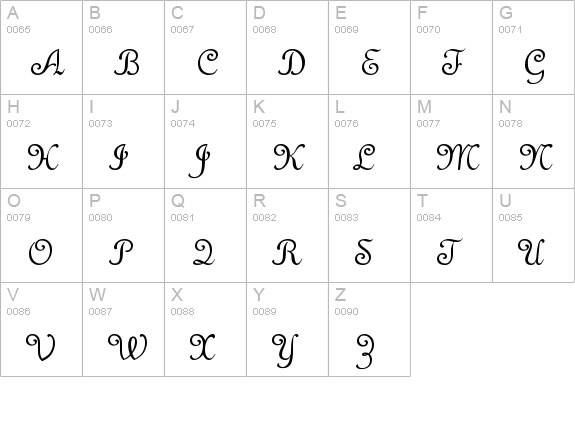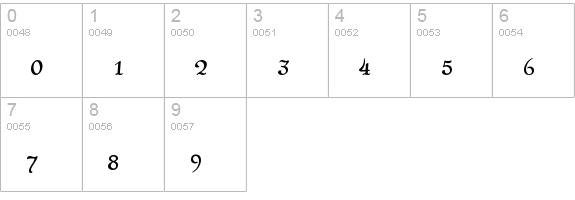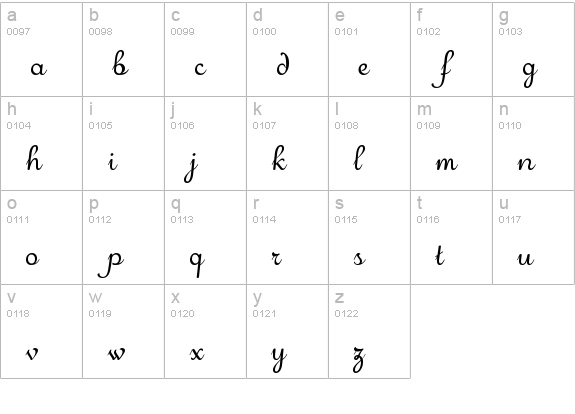
Introducing Merveille font, a mesmerizing typeface that effortlessly blends elegance with modernity. With its graceful curves and sophisticated lines, Merveille is the perfect choice for adding a touch of sophistication to any design project. What sets Merveille font apart is not only its stunning aesthetics but also its accessibility. This remarkable font is freely available to download at FontsMarket.com, making it a valuable asset for designers, creatives, and anyone seeking to enhance their visual projects without breaking the bank. The versatility of Merveille font shines through in its ability to adapt to various design contexts. Whether it's for branding, editorial design, packaging, or website development, Merveille effortlessly captures attention and leaves a lasting impression. Crafted with meticulous attention to detail, Merveille font boasts a wide range of weights and styles, providing ample flexibility for designers to create captivating compositions. From its delicate thin variations to its bold and confident forms, Merveille offers endless possibilities for expressing creativity and individuality. The legibility of Merveille font remains uncompromised, ensuring readability across different mediums. Its clean and well-defined letterforms make it an ideal choice for both print and digital applications, guaranteeing that every word and phrase is communicated with clarity and impact. Merveille font is not just a typeface; it is a statement. It embodies the spirit of innovation, elegance, and accessibility. And with its availability as a free download at FontsMarket.com, it has become an indispensable resource for designers worldwide. So, if you're looking to elevate your design projects with a font that seamlessly combines beauty and functionality, look no further than Merveille. Download it today from FontsMarket.com and experience the magic of this exceptional typeface firsthand.